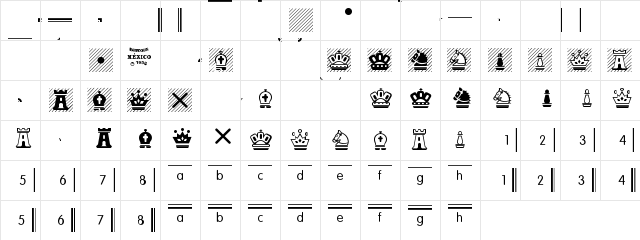
Chess Magnetic Regular
Design Context for Chess Magnetic Typeface
Chess Magnetic offers clean, dependable letterforms without strong stylistic allegiance, making it a practical choice for designers who need flexibility.